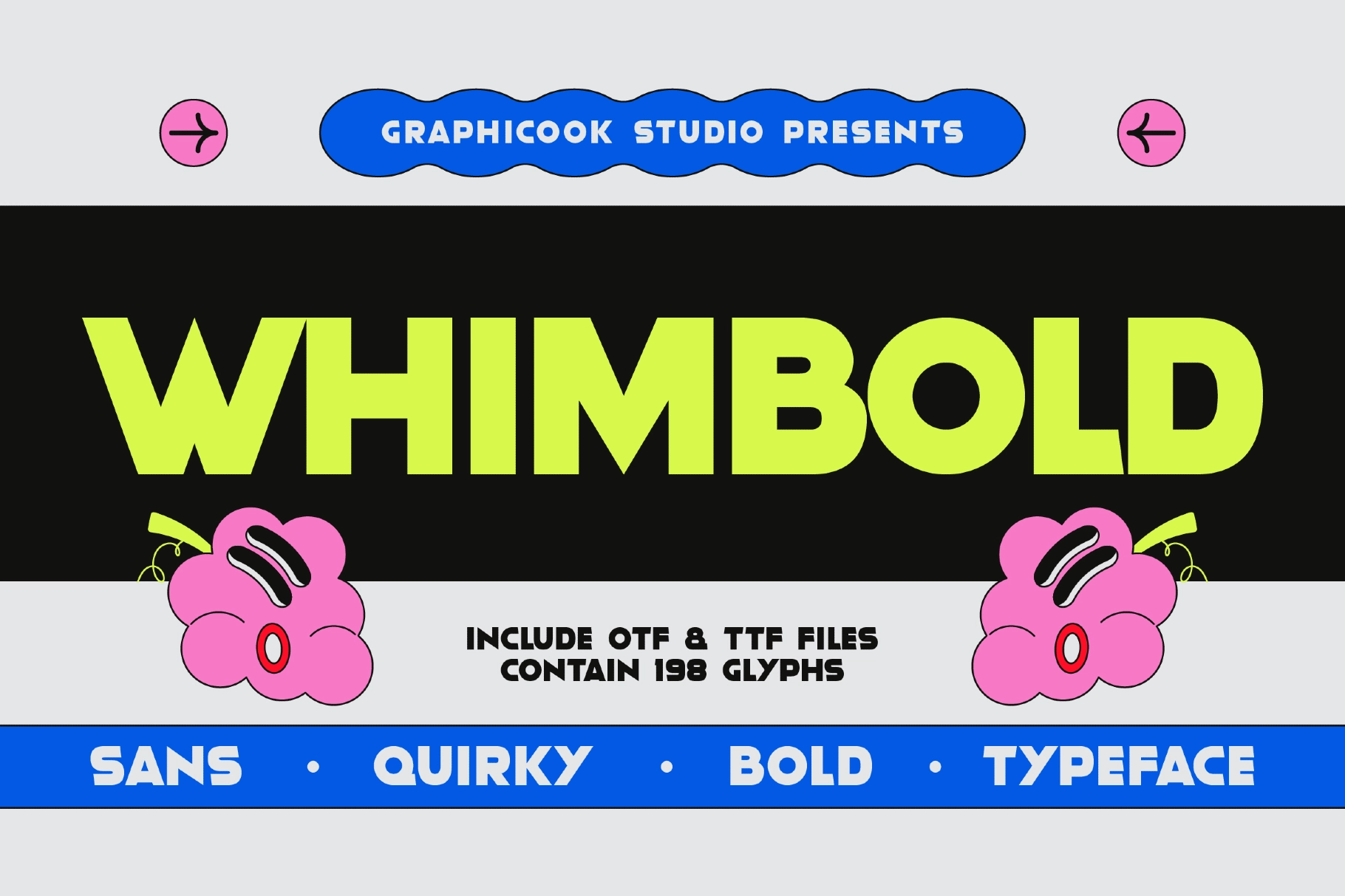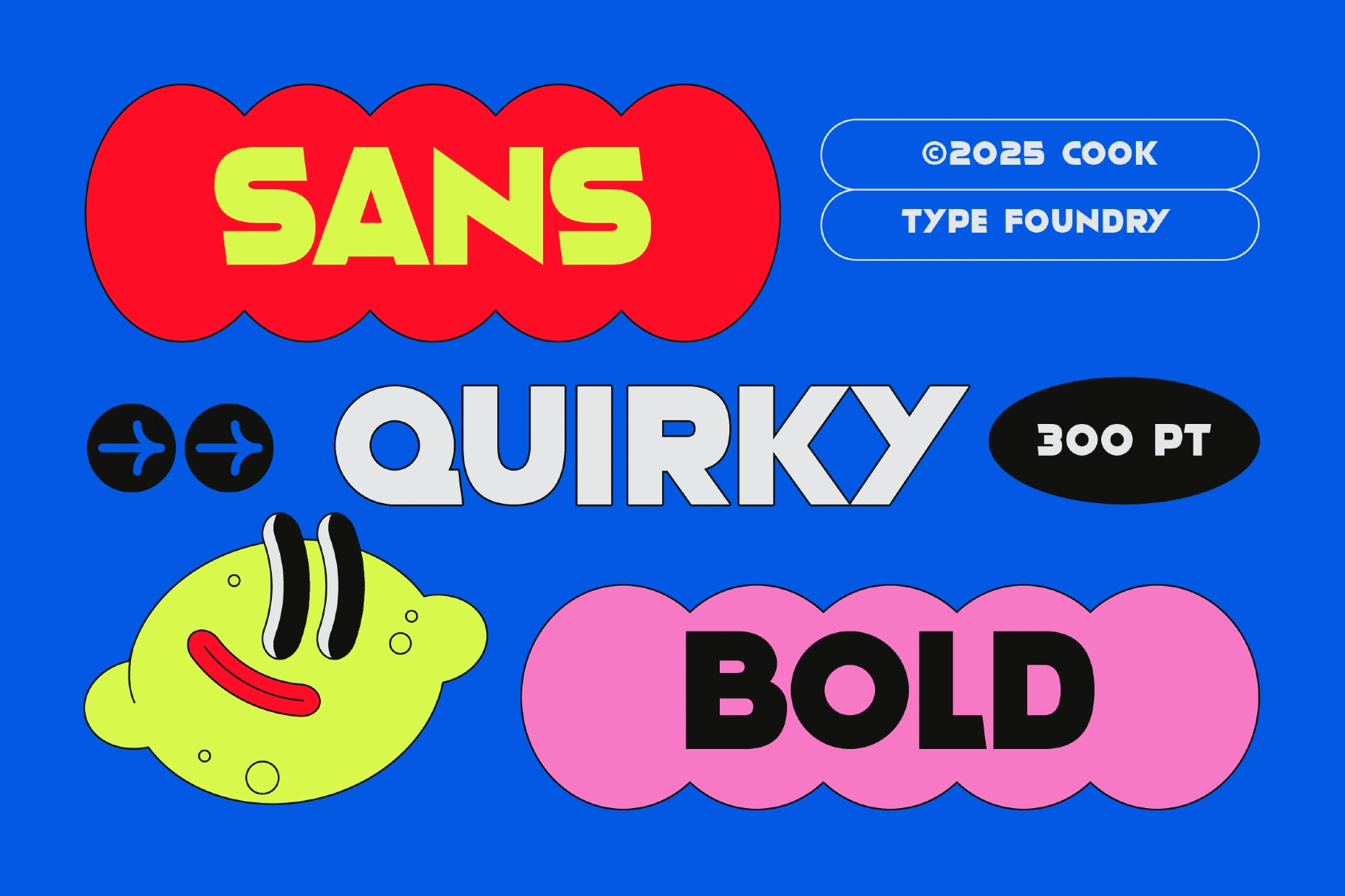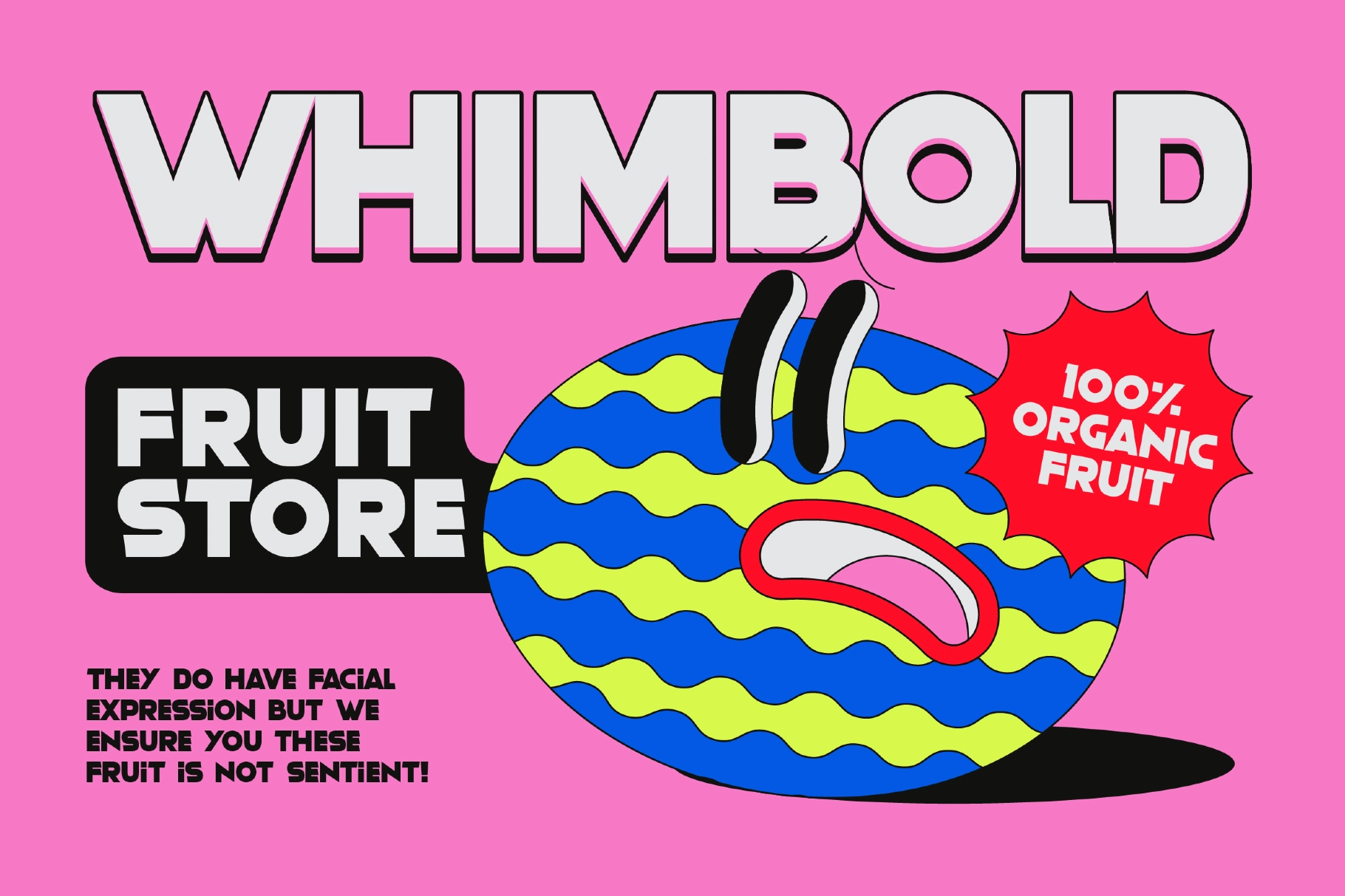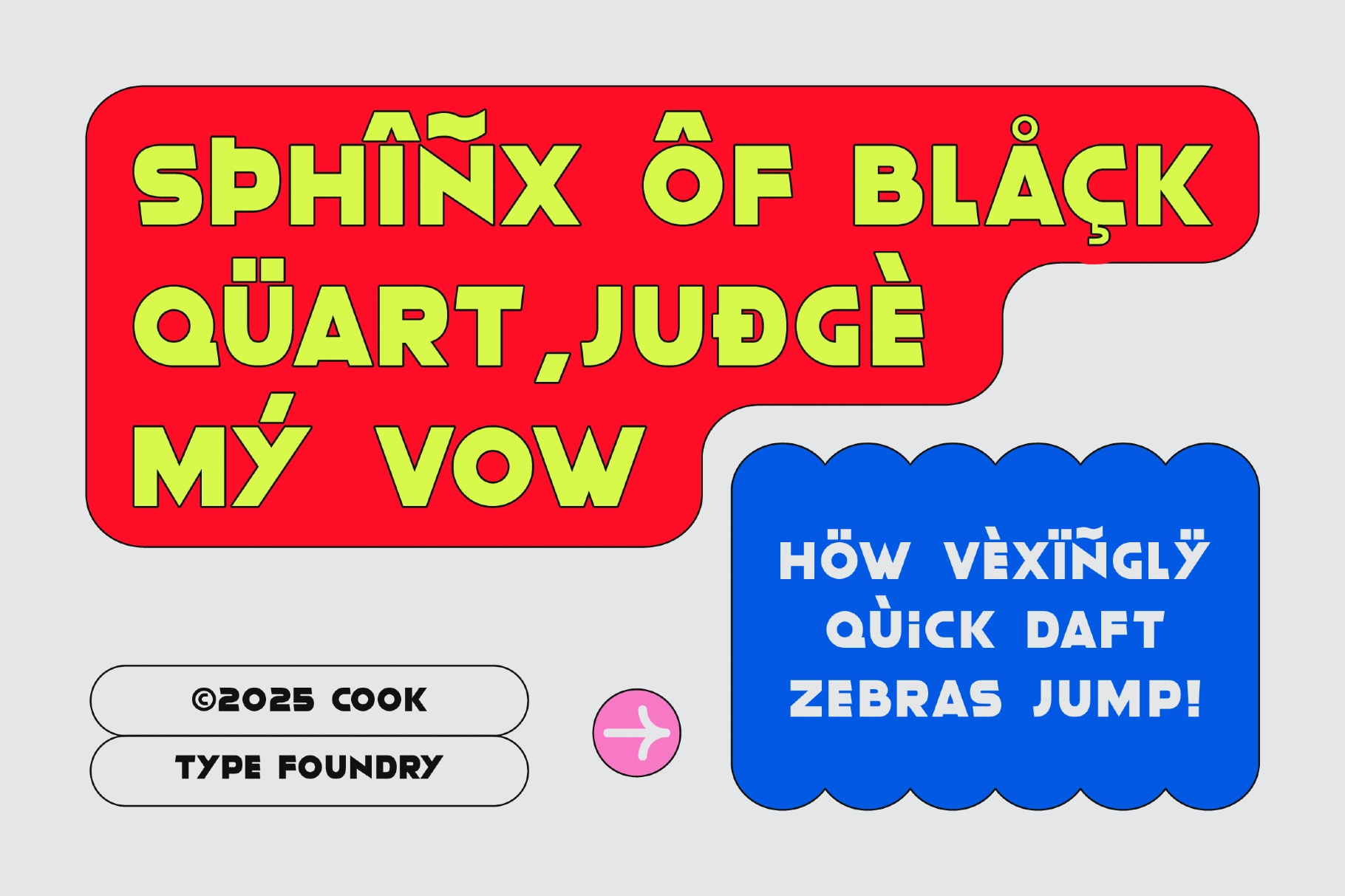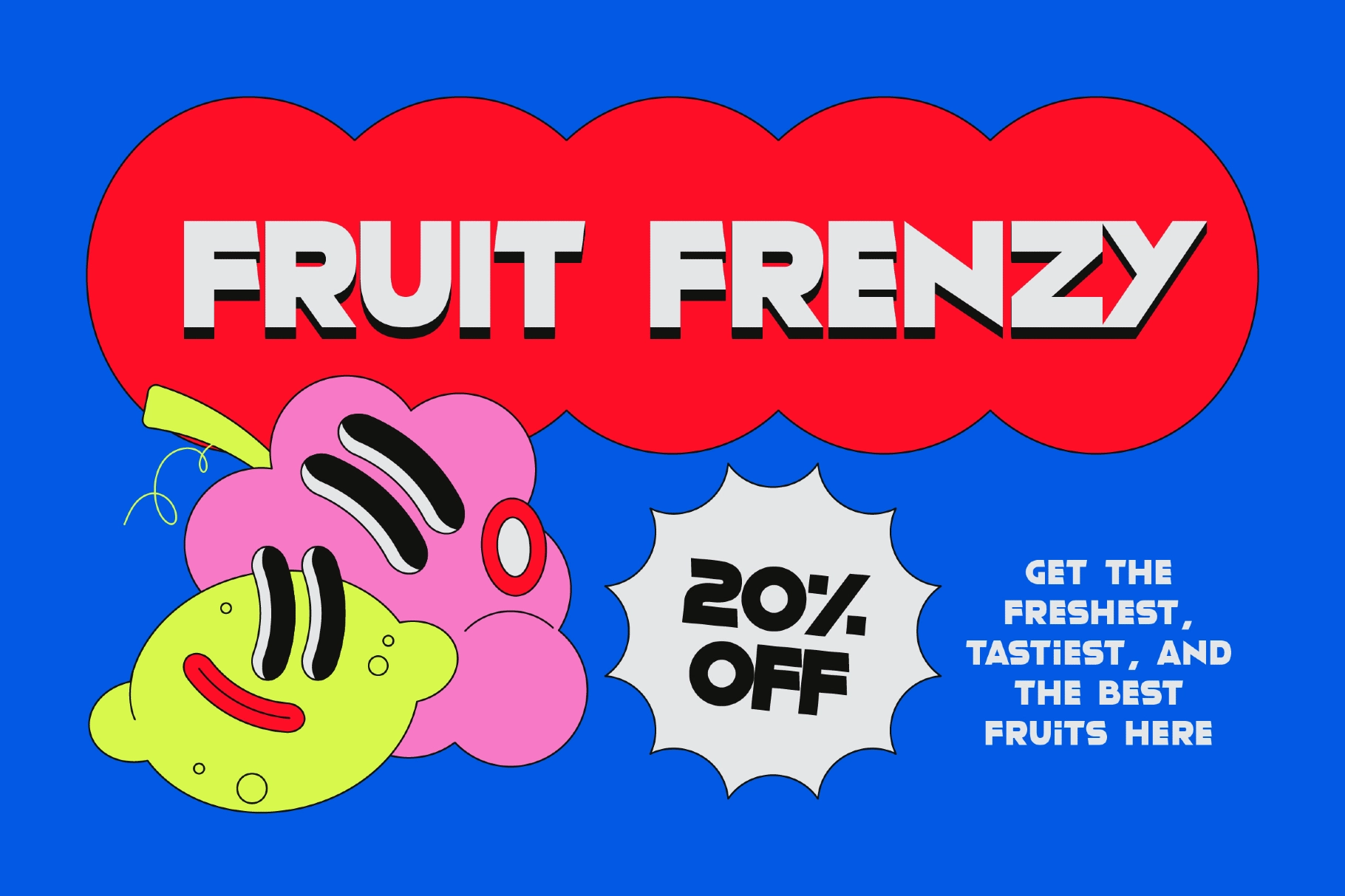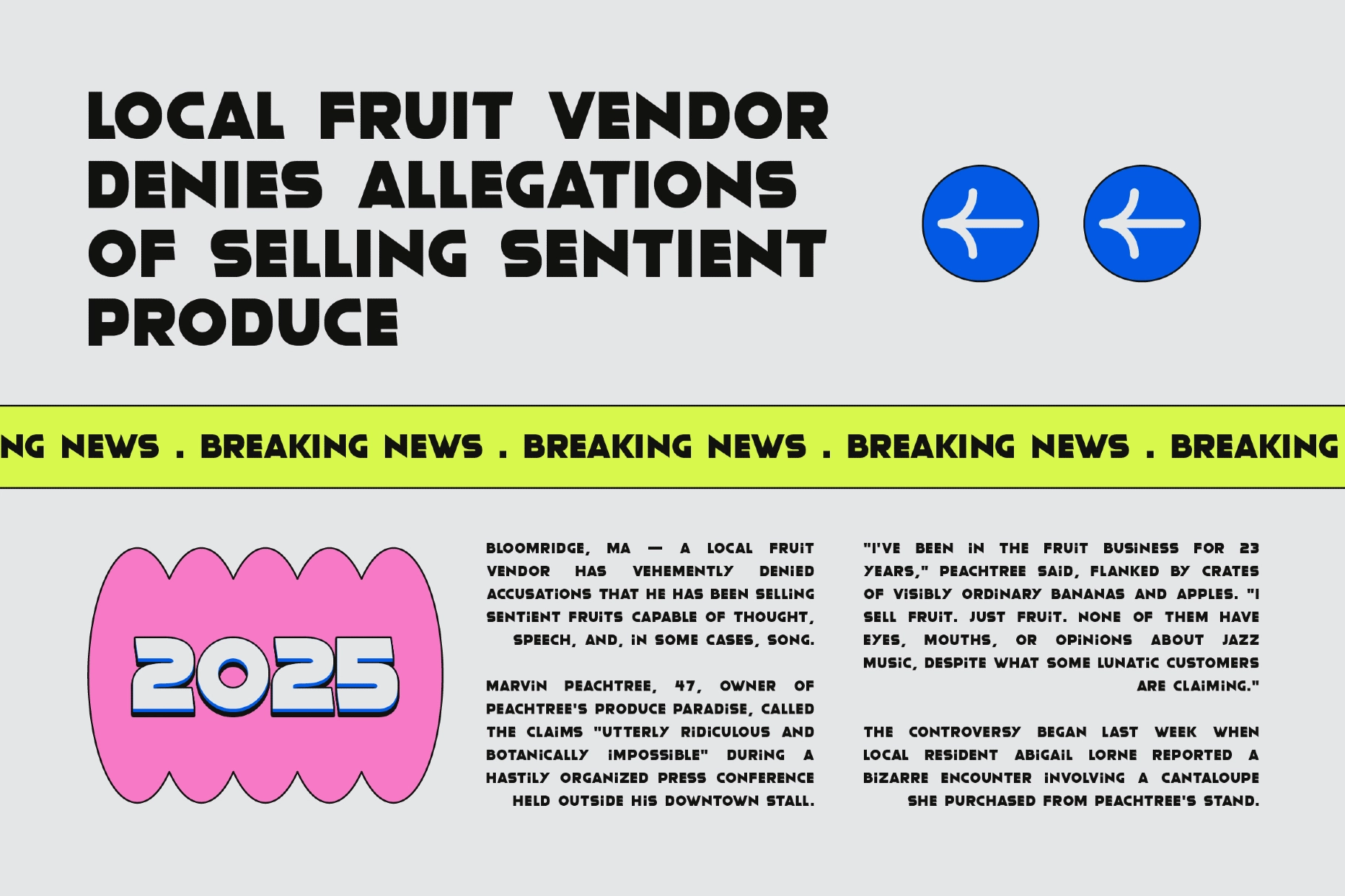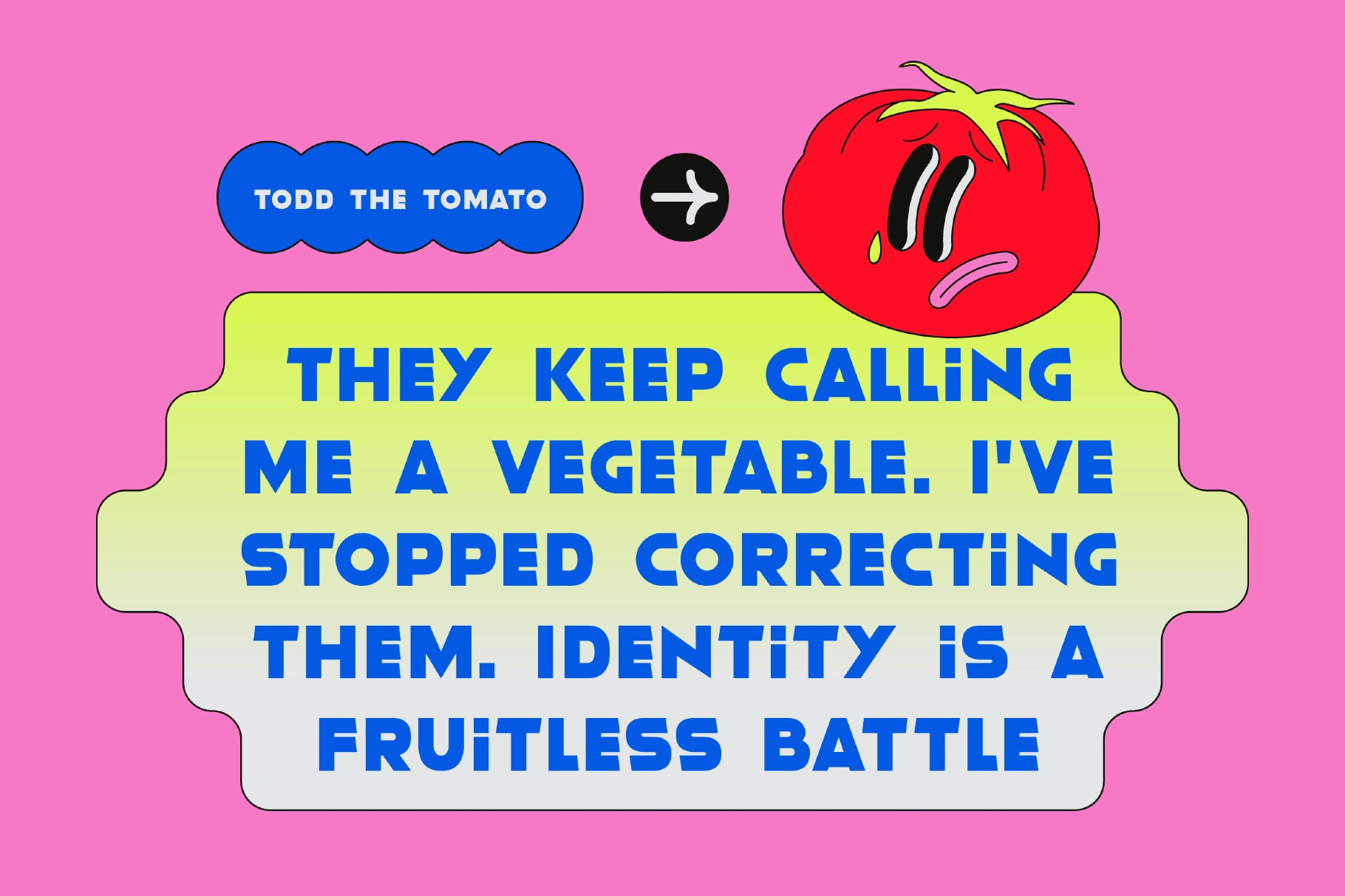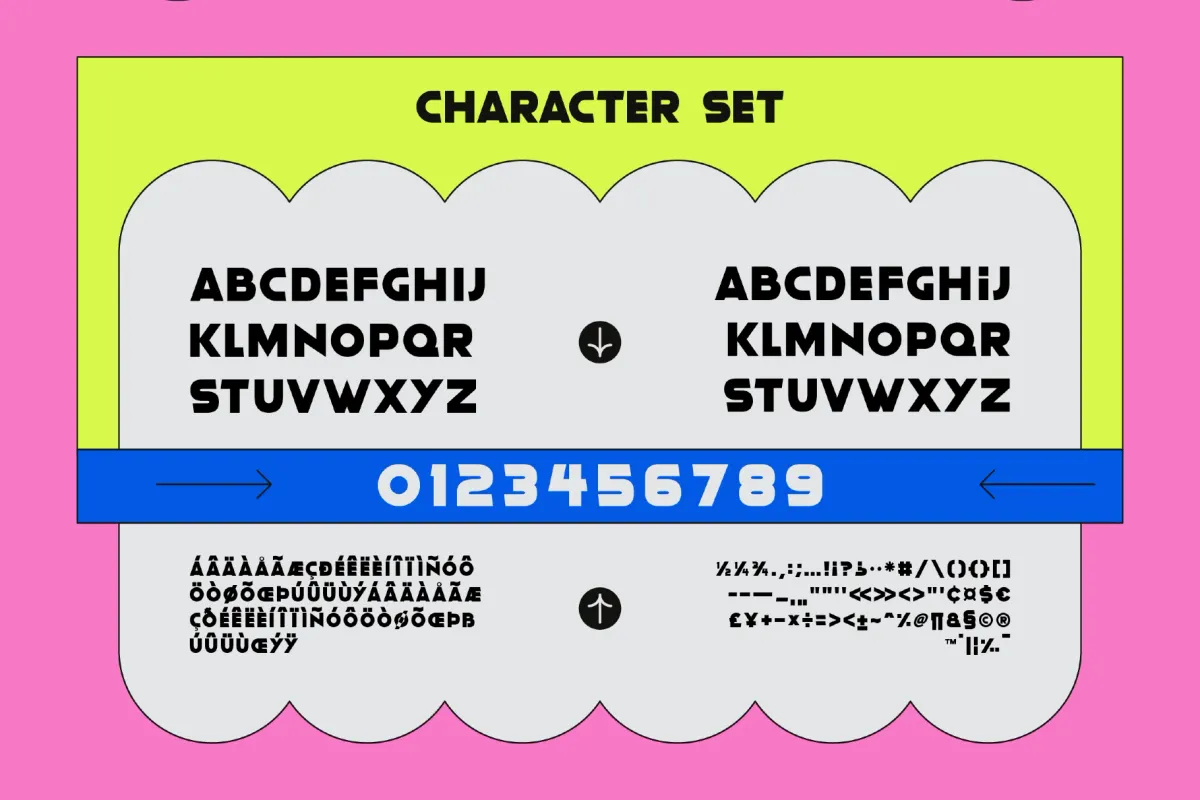
Whimbold Font
Whimbold
Whimbold is a bold sans-serif font featuring unconventional letterforms that add a quirky, energetic flair. Ideal for headlines or designs that want to appear dominant, fun, and full of character.